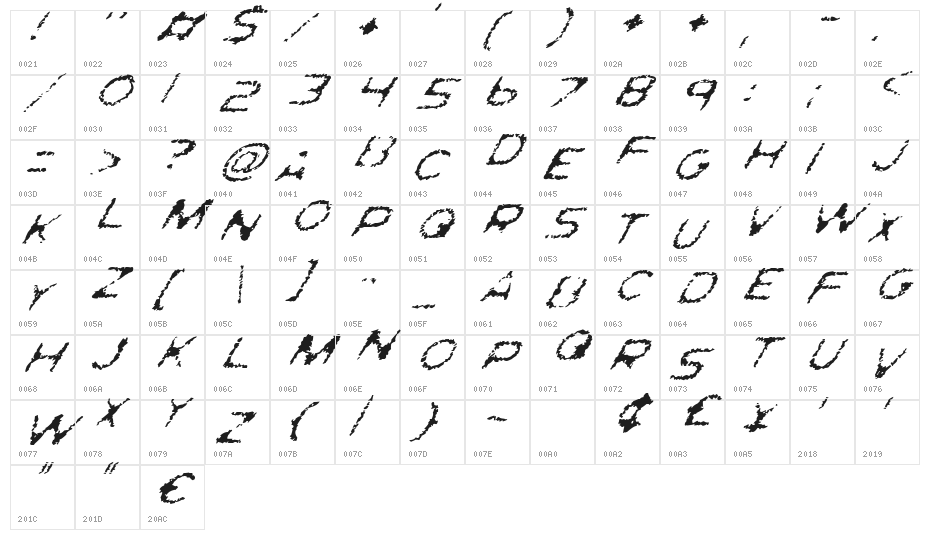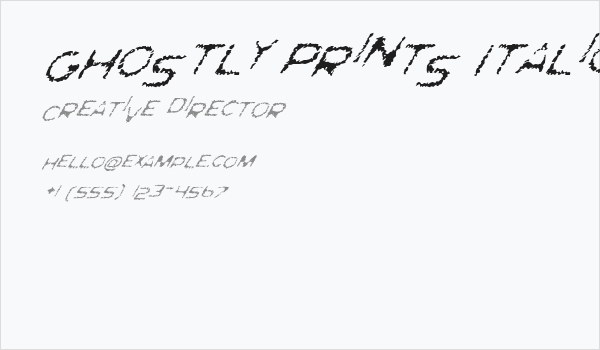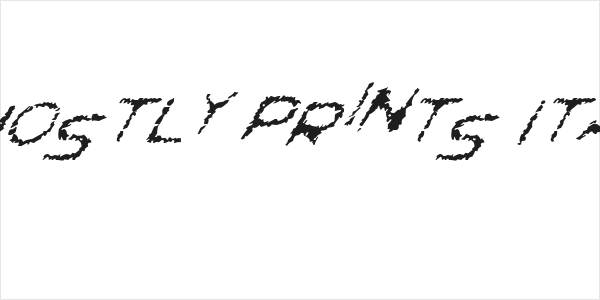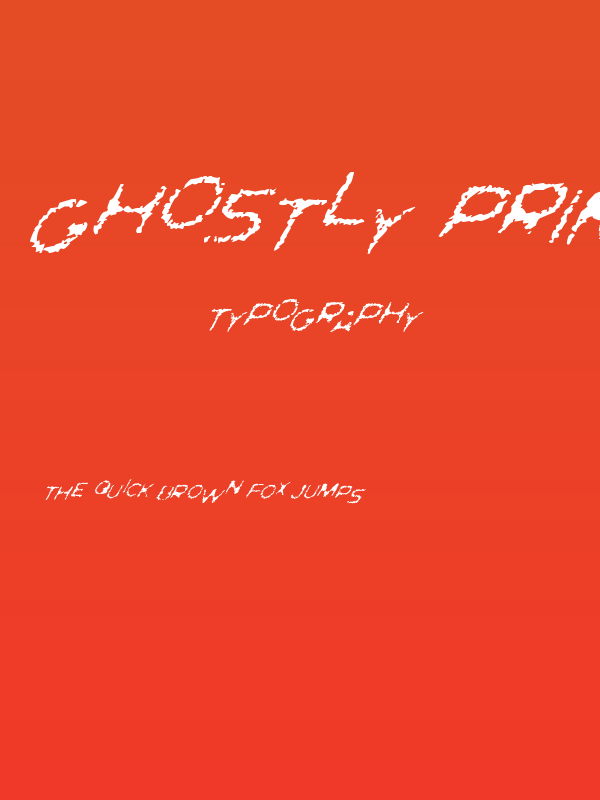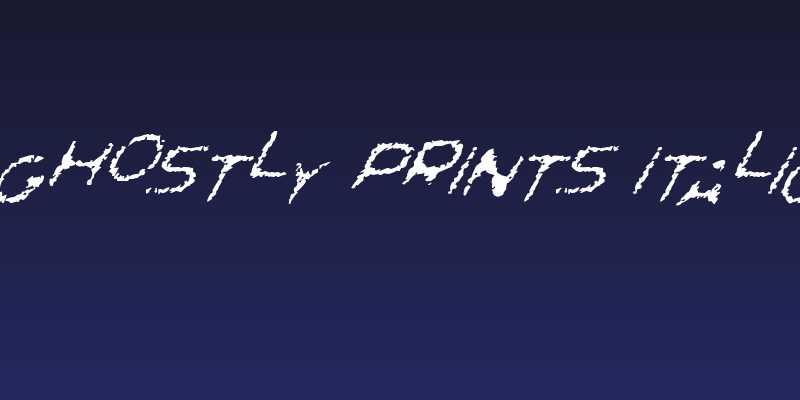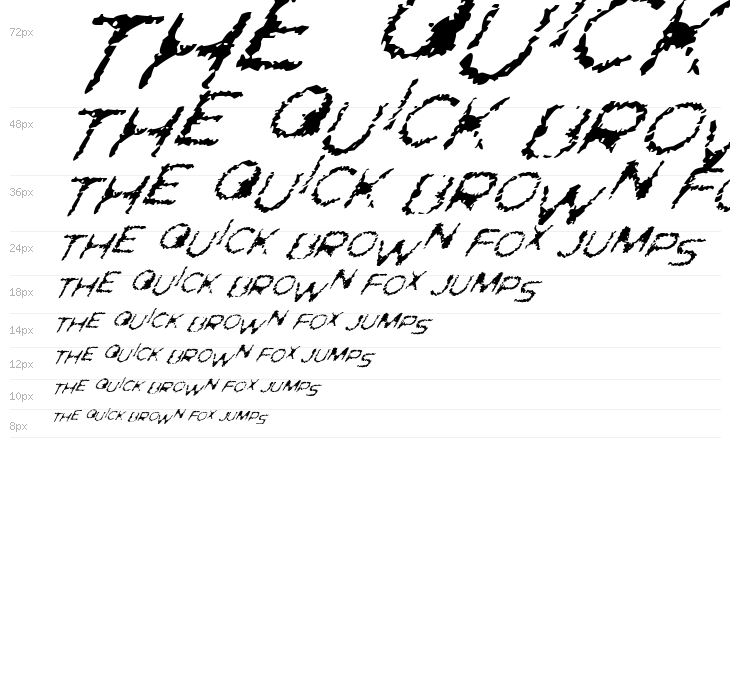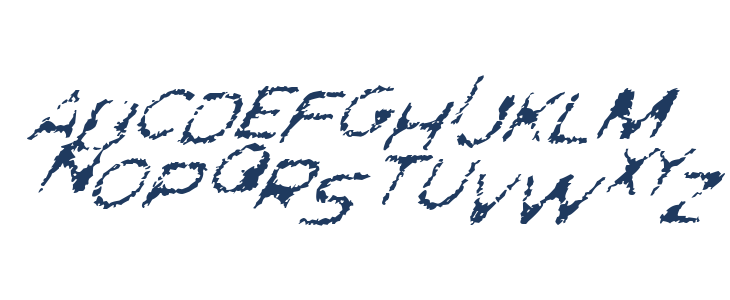
Ghostly Prints Italic Font
Ghostly Prints Italic Description
This font features a unique, distressed appearance that mimics the look of weathered or eroded text. Each character appears as if it has been partially worn away, giving it a ghostly and mysterious feel. The letters are italicized, adding a sense of movement and fluidity to the overall design. The rough edges and irregular strokes create a dynamic texture, making it stand out in any design. This font is perfect for projects that require a spooky or vintage aesthetic, such as Halloween-themed graphics or retro-inspired designs. The combination of its italic style and distressed texture makes it versatile for various creative applications.
| Use Case | Headlines, Logos, Themed Designs |
| Proposed Projects | Ideal for Halloween graphics, vintage posters, spooky invitations, and themed event branding. |